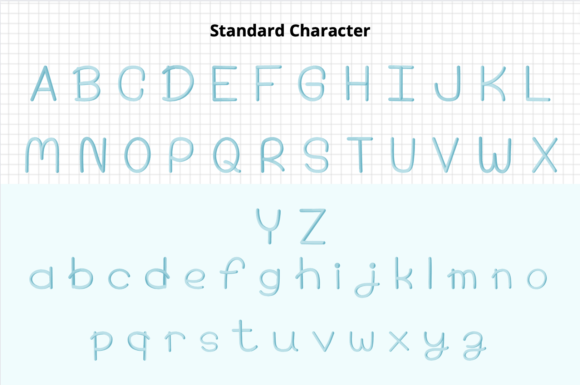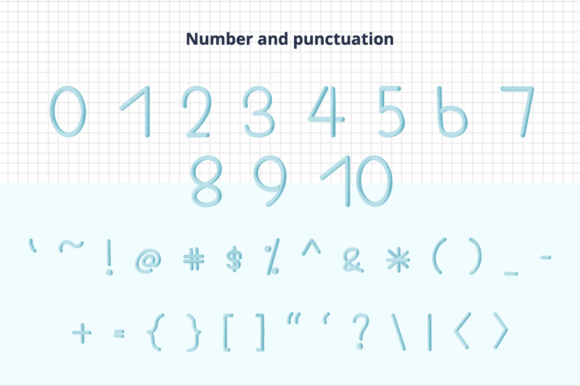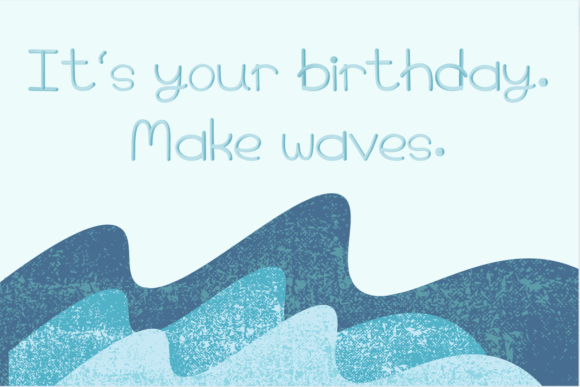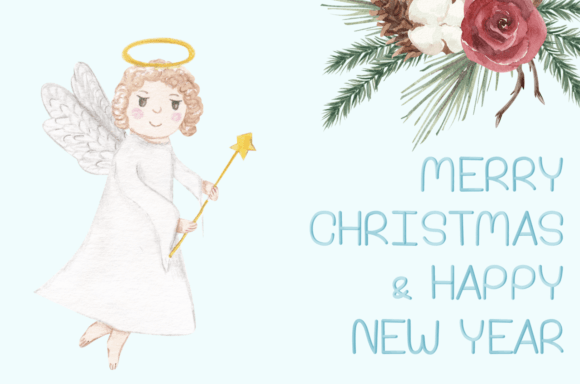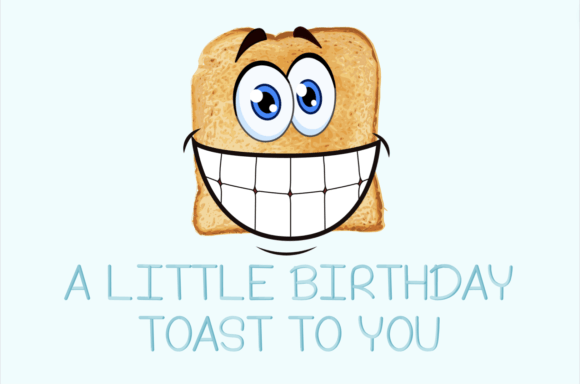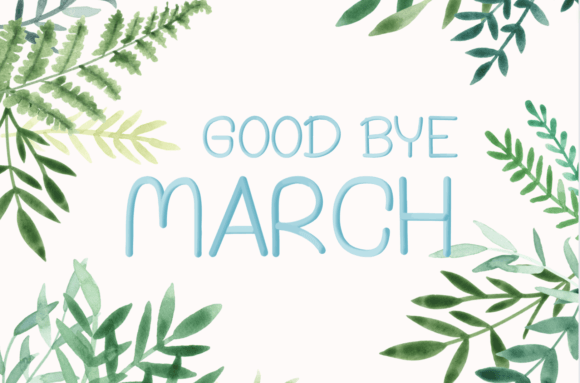
Introduction to Little Blue Font
Have you ever found yourself staring at a blank canvas, waiting for inspiration to strike? For many designers, that moment of creative spark is what drives us to create something truly unique and captivating. And that’s exactly what the Little Blue Font is designed to do – to unleash your creativity and make a bold statement in your designs.
As a valuable design resource, the Little Blue Font offers a high-quality, transparent background that allows your creative project to shine. With its lively colors and whimsical letter shapes, this stunning font is perfect for anyone looking to add a touch of magic to their designs. And the best part? It’s available for a free download, making it an instant hit among designers looking for a reliable design resource.
Key Features of Little Blue Font
- High-quality design resource with a transparent background, ideal for creative projects
- Unique, modern design with a clean and minimalist aesthetic, perfect for branding and logo design
- Resolution-independent, scalable design for use in various sizes and resolutions
- Perfect for designers, artists, and entrepreneurs seeking a high-quality, free design resource for their creative projects
Honest Review: Little Blue Font
As a designer, I’m always on the lookout for high-quality design resources that can elevate my creative projects. I recently stumbled upon the Little Blue Font, and I’m excited to share my honest review with you.
- ✨ Beautifully crafted font with a unique and modern design.
- ✨ Perfect for use on transparent backgrounds, making it ideal for digital designs.
- ✨ The font is highly legible, even at small sizes, making it suitable for a wide range of design applications.
- ⚠️ The font only comes in one weight, which may limit its versatility in certain design situations.
- ⚠️ Some users may find the font too simplistic, lacking the complexity and character of more ornate fonts.
Overall, I’m impressed with the Little Blue Font’s quality and design. While it may have some limitations, I believe it’s a great addition to any designer’s toolkit, especially for those working on digital projects. With its unique design and transparent background capabilities, it’s definitely worth checking out.
How to Use Little Blue Font
Little Blue Font is ideal for various design projects, such as creating social media graphics, flyers, brochures, and presentations. It’s also perfect for use in logos, branding materials, and other marketing collateral. By using this high-quality font, you can elevate your design and make it stand out from the crowd.